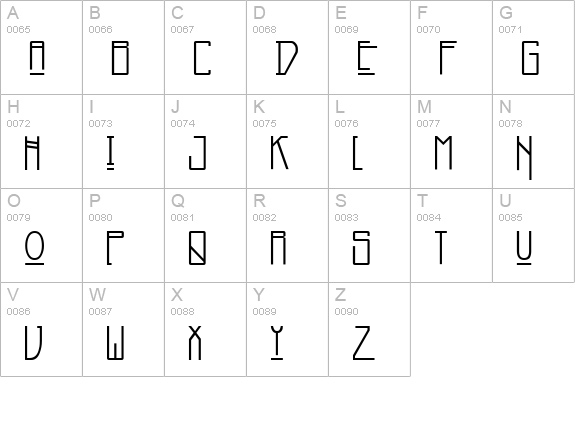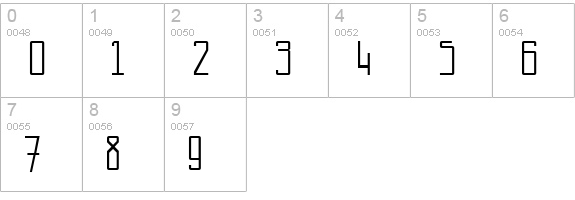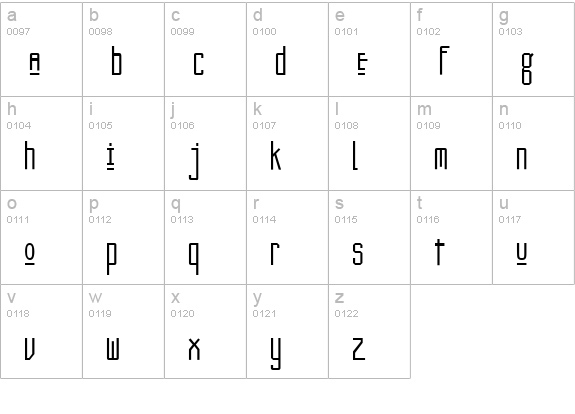
NewDeli Font Details
Introducing NewDeli font, a unique and modern typeface that will add a touch of sophistication to your designs. With its elegant curves and stylish letterforms, NewDeli is perfect for branding, logos, headlines, and more. What sets NewDeli apart is not only its sleek design but also the fact that it is available for free! Yes, you read that right - this stunning font can be downloaded at FontsMarket.com without any cost. So go ahead and elevate your projects with NewDeli, the free font that will make a lasting impression.